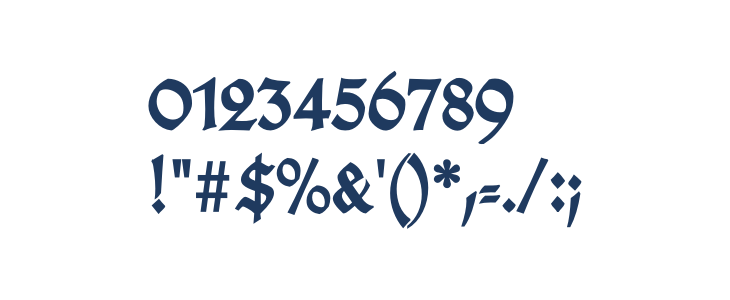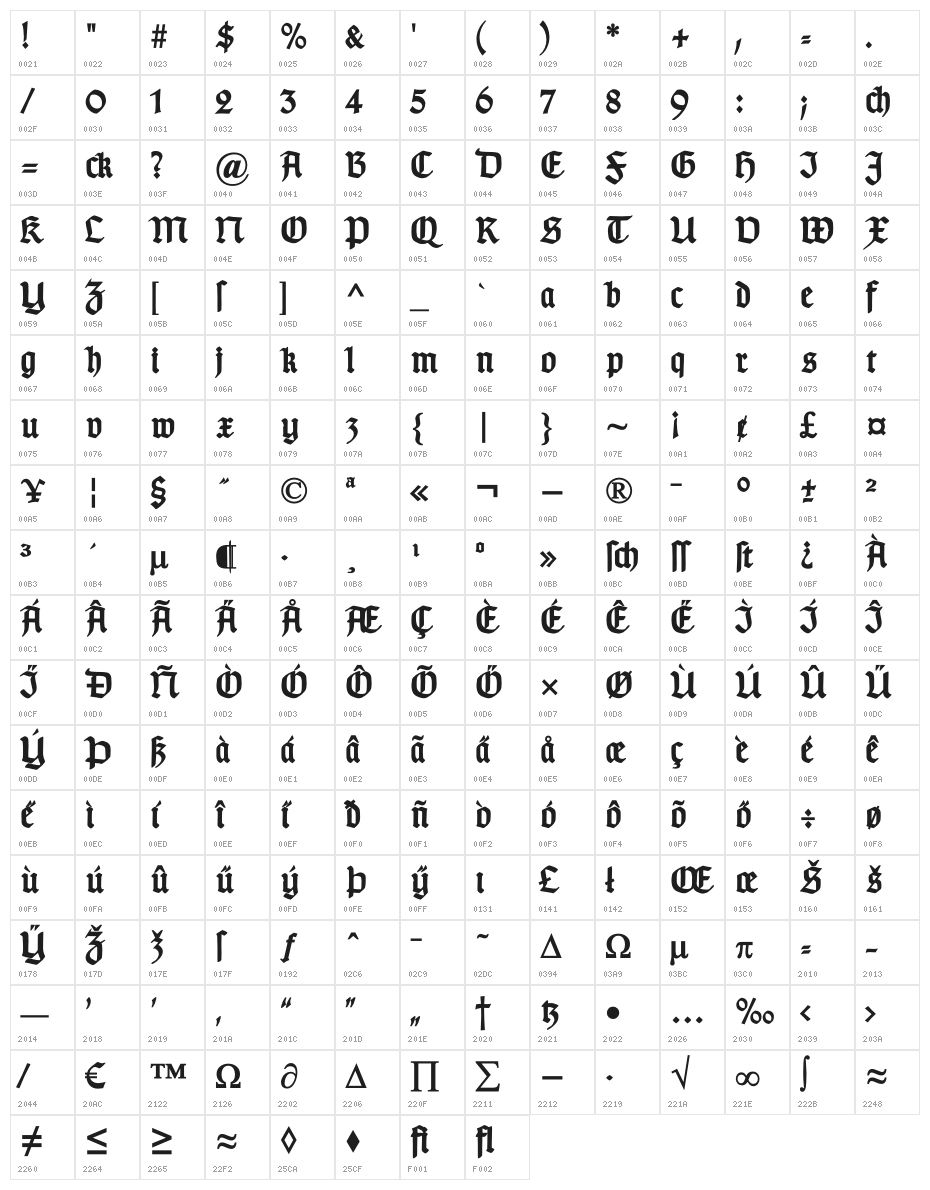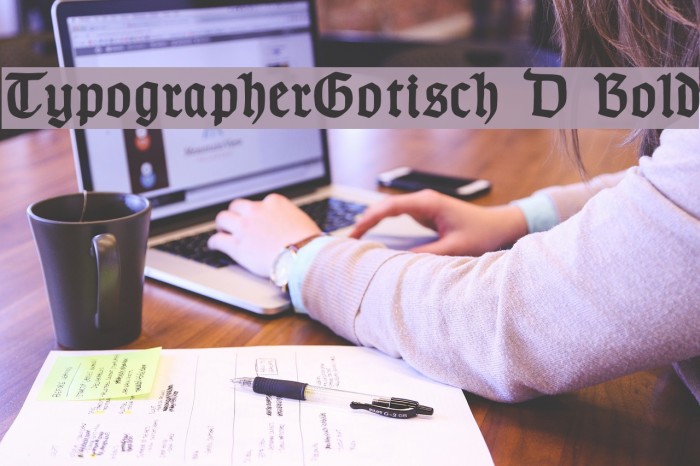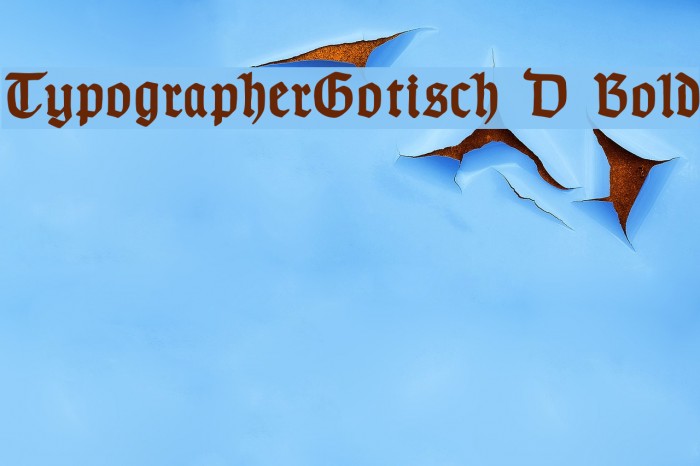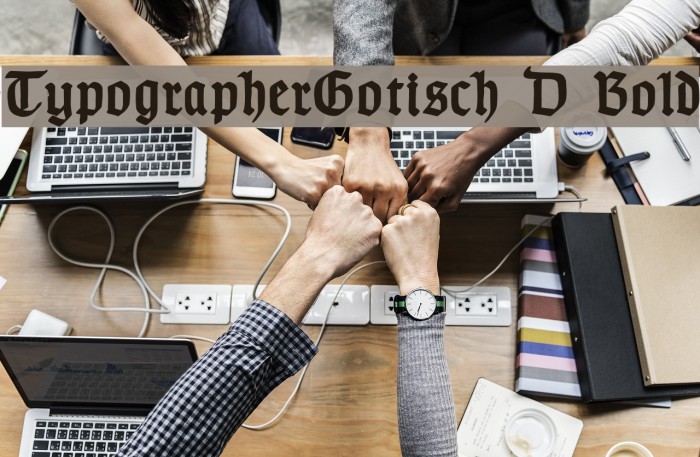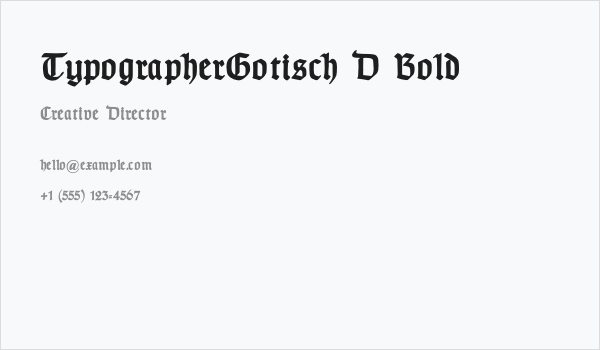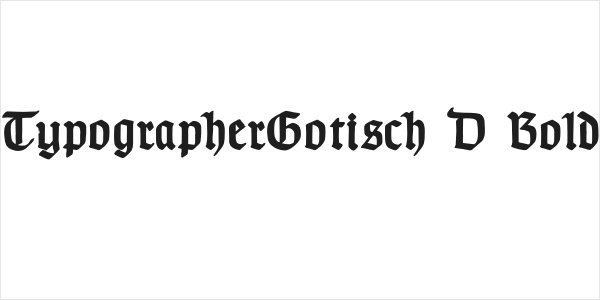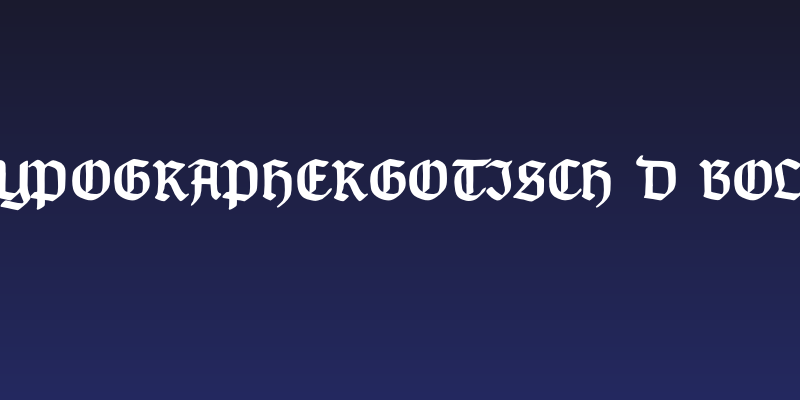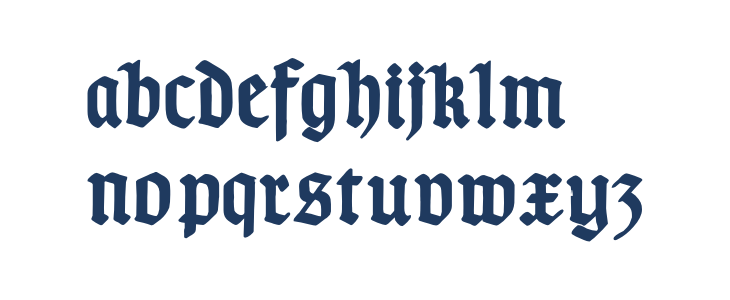
TypographerGotisch D Bold Font
TypographerGotisch D Bold Description
This font embodies the traditional elegance of blackletter styles, characterized by its bold, angular strokes and intricate detailing. The uppercase letters feature sharp, pointed serifs and dramatic flourishes, while the lowercase letters maintain a consistent, flowing form that complements the overall design. The numerals are equally bold, with distinctive curves and angles that enhance readability. Special characters are crafted with the same attention to detail, ensuring a cohesive look across all glyphs. This font's historical and artistic appeal makes it ideal for projects that require a touch of classic sophistication.